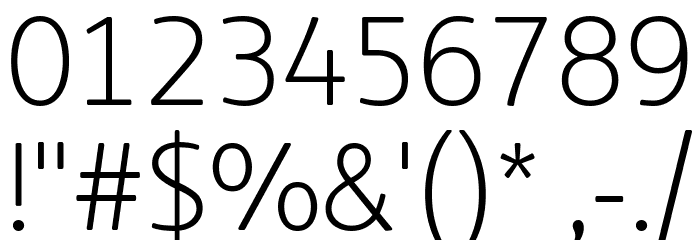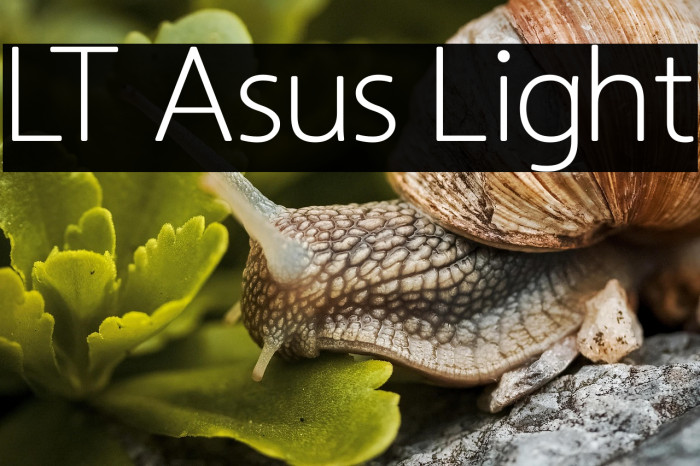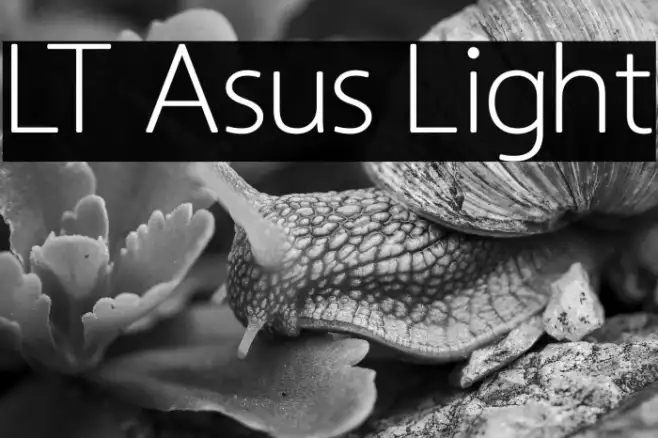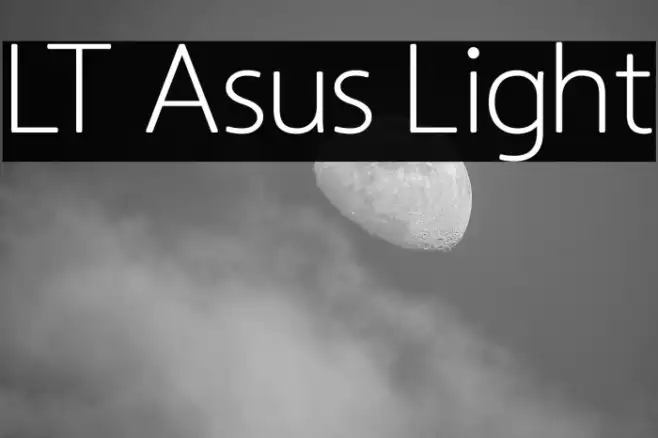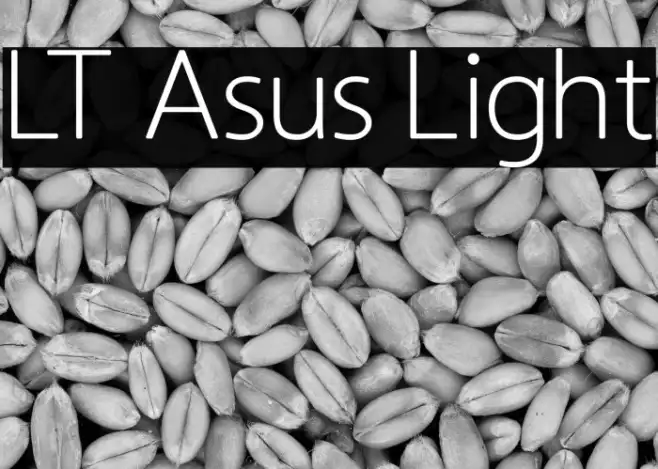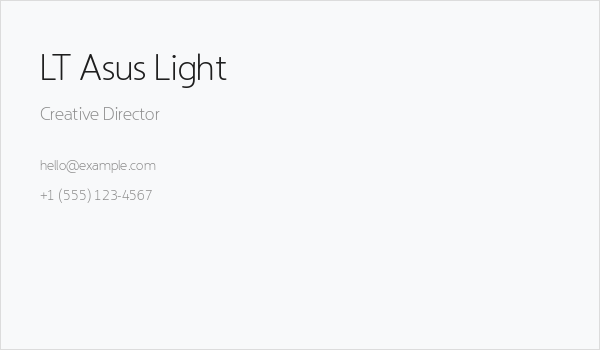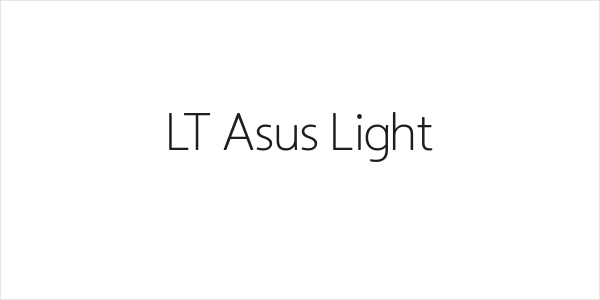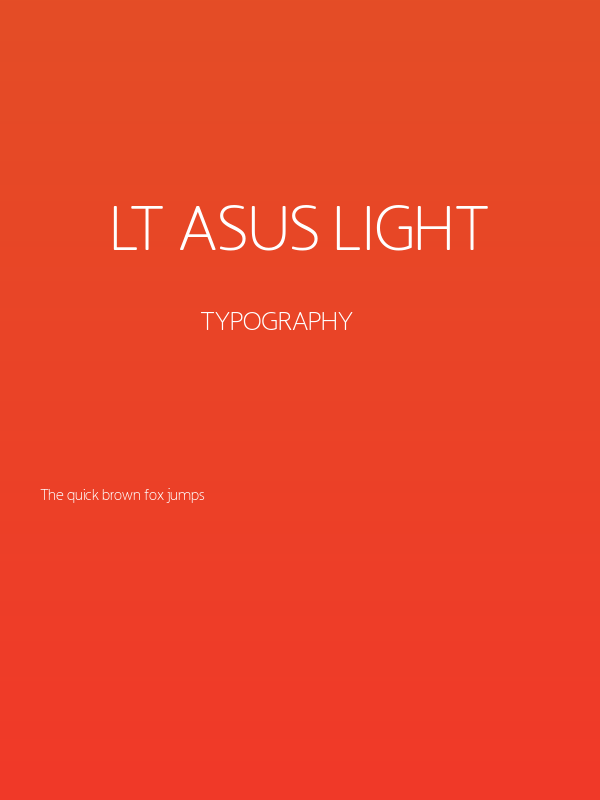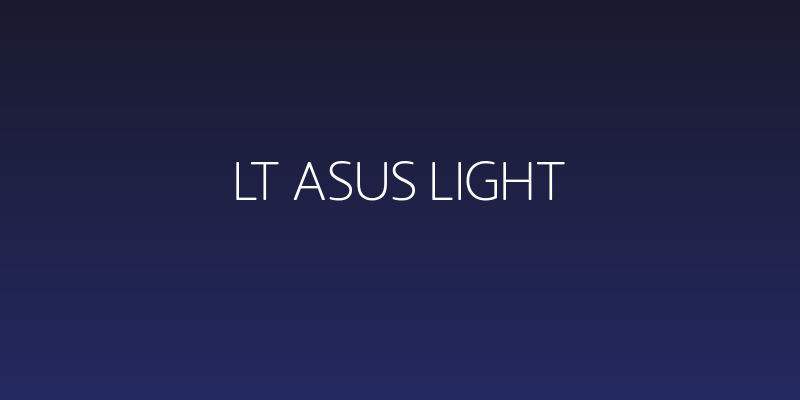
LT Asus Light Font
LT Asus Light Description
This font features a clean and modern sans-serif design, characterized by its sleek and minimalistic appearance. The letters are evenly spaced with a consistent stroke width, providing a harmonious and balanced look. The uppercase letters are tall and slightly narrow, while the lowercase letters maintain a smooth and rounded form. The numerals are clear and legible, making them suitable for various applications. Special characters are designed with the same attention to detail, ensuring uniformity across the font. This font's simplicity and elegance make it versatile for both digital and print media.
| Proposed Projects | Ideal for web design, branding, corporate materials, and user interfaces. |